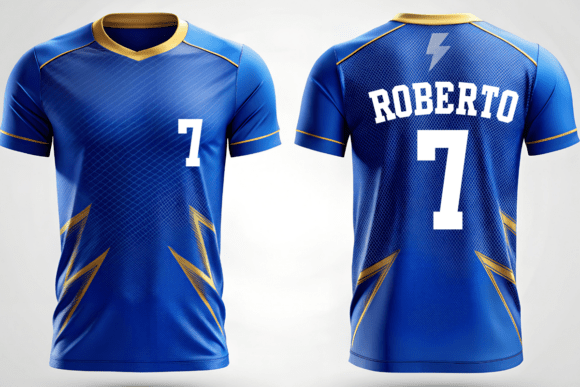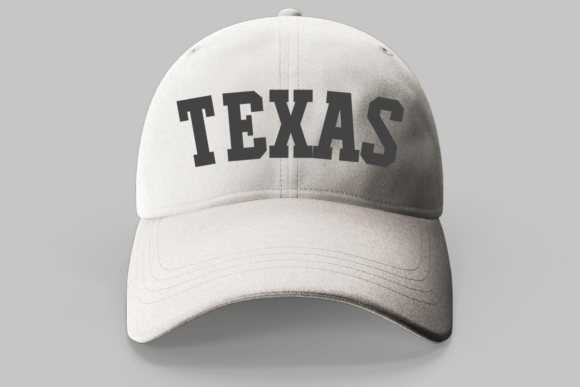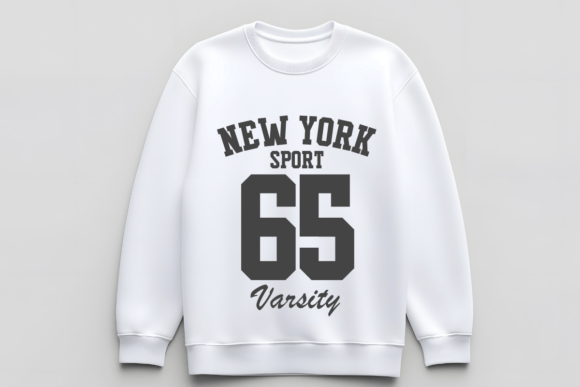
Introduction to Grinch Better Font
Grinch Better is a sport display font.
With bold varsity letters, perfect for college alphabet projects, monogram SVGs, and sports font designs Includes OTF and TTF files.